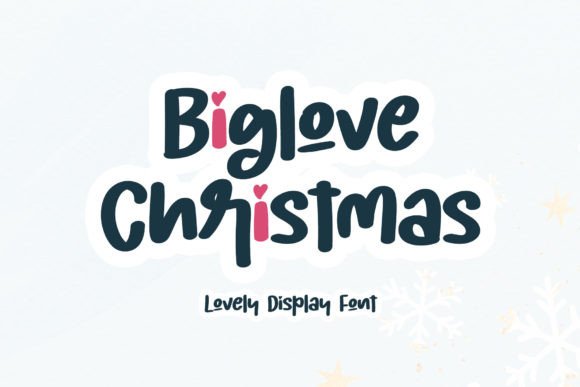
Biglove Christmas Font: A Festive and Fun Display Font for Your Holiday Projects
Are you looking for a font that captures the essence of Christmas and adds a touch of festivity to your designs? Look no further than the Biglove Christmas Font. This lovely, cute, and fun display font is perfect for a wide range of crafty ideas, from letterheads and titles to stationery. In this article, we’ll take a closer look at the Biglove Christmas Font and explore its features, benefits, and uses.
What is Biglove Christmas Font?
Biglove Christmas Font is a unique and original display font designed specifically for the holiday season. Its playful and charming look makes it perfect for adding a touch of Christmas cheer to your designs. Whether you’re creating holiday cards, gift tags, or festive posters, this font is sure to make your projects stand out.
Key Features of Biglove Christmas Font
- Lovely and Cute Design: The Biglove Christmas Font features a delightful and charming design that’s sure to capture the essence of Christmas.
- Fun Display Font: This font is perfect for display purposes, making it ideal for titles, headings, and other prominent text elements.
- Original Look: The Biglove Christmas Font boasts an original and unique look that will set your designs apart from the rest.
- Crafty Ideas: This font is perfect for a wide range of crafty ideas, from letterheads and titles to stationery and more.
Benefits of Using Biglove Christmas Font
So, why choose the Biglove Christmas Font for your holiday projects? Here are just a few benefits of using this festive font:
- Adds a Touch of Festivity: The Biglove Christmas Font adds a touch of Christmas cheer to your designs, making them perfect for the holiday season.
- Unique and Original: This font boasts a unique and original look that will set your designs apart from the rest.
- Versatile: The Biglove Christmas Font is perfect for a wide range of crafty ideas, making it a versatile addition to your font collection.
Uses of Biglove Christmas Font
The Biglove Christmas Font is perfect for a wide range of holiday projects, including:
- Holiday Cards: Add a touch of festivity to your holiday cards with the Biglove Christmas Font.
- Gift Tags: Create cute and charming gift tags with this festive font.
- Festive Posters: Design eye-catching festive posters with the Biglove Christmas Font.
- Letterheads and Titles: Use this font to create festive letterheads and titles for your holiday projects.
- Stationery: Add a touch of Christmas cheer to your stationery with the Biglove Christmas Font.
In conclusion, the Biglove Christmas Font is a lovely, cute, and fun display font that’s perfect for adding a touch of festivity to your holiday projects. Its unique and original look makes it a versatile addition to your font collection, and its ease of use makes it perfect for crafty ideas. Whether you’re creating holiday cards, gift tags, or festive posters, this font is sure to make your projects stand out.